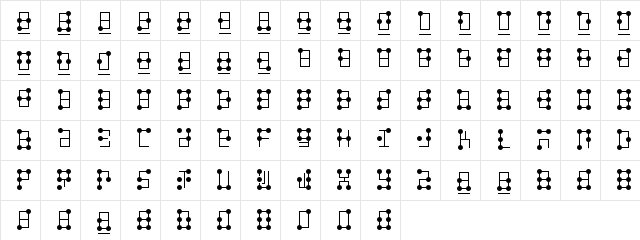
Braille Latin HC Regular
| Designer | Roberto Mocci |
Design Context for Braille Latin HC Typeface
Braille Latin HC offers clean, dependable letterforms without strong stylistic allegiance, making it a practical choice for designers who need flexibility.